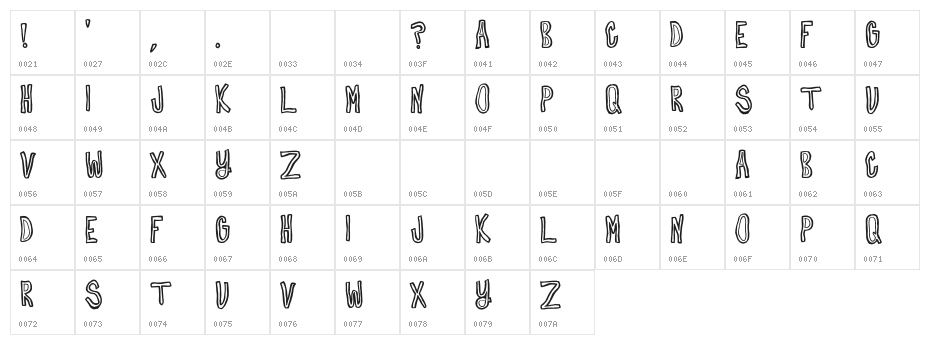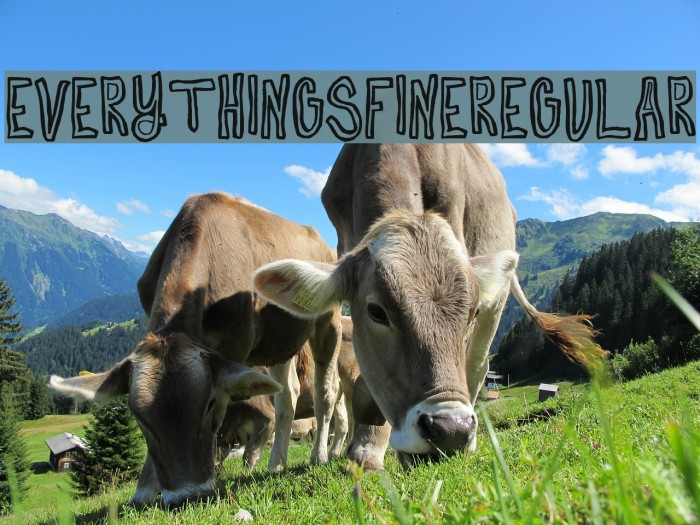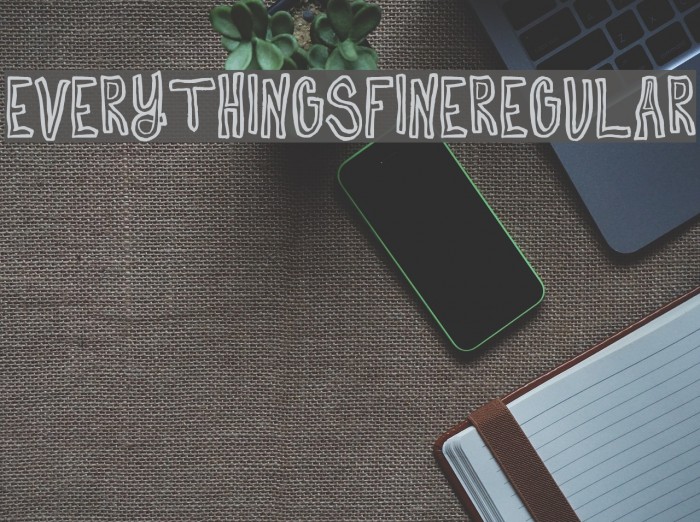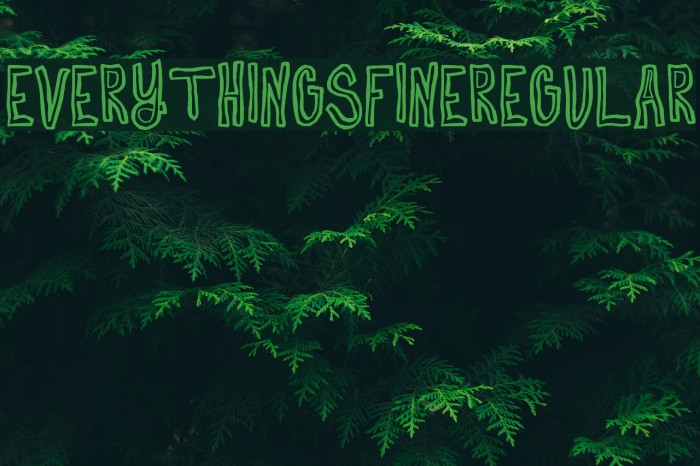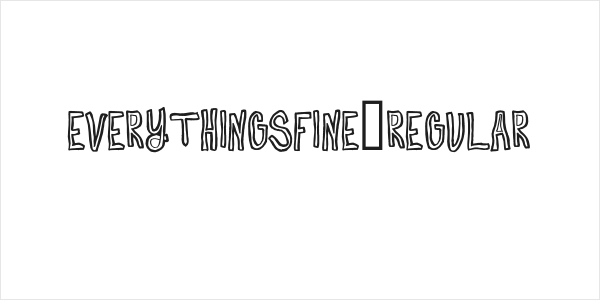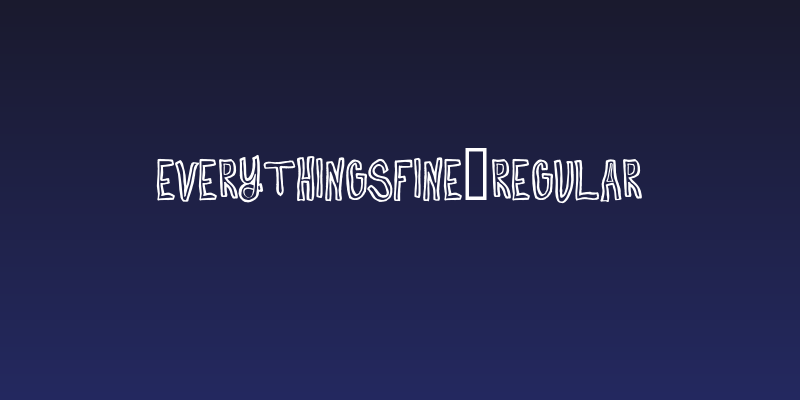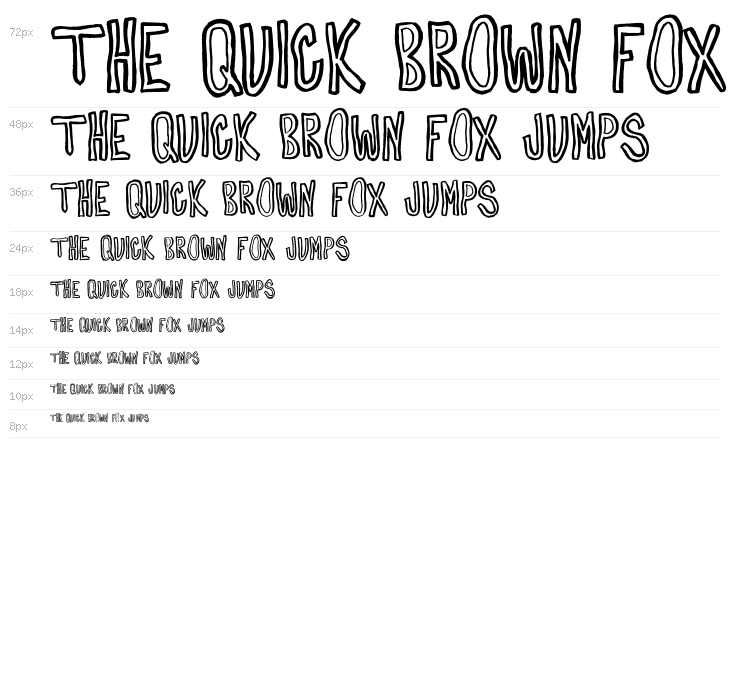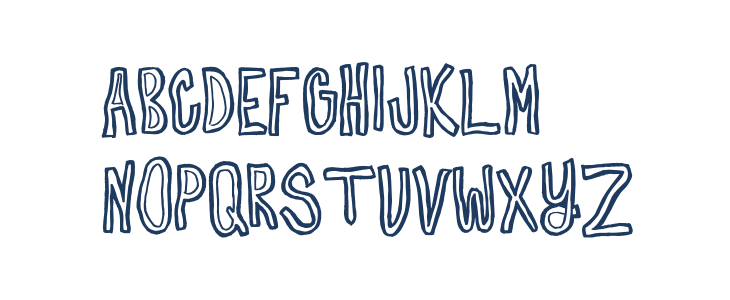
EverythingsFine-Regular Font
EverythingsFine-Regular Description
This font features a playful and informal style with a hand-drawn appearance. The letters are bold and have a slightly uneven, sketch-like quality, giving them a casual and approachable feel. The strokes are thick and consistent, with rounded edges that add to the friendly aesthetic. The uppercase and lowercase letters maintain a uniform height, contributing to a cohesive look. The numbers and special characters follow the same design principles, ensuring a harmonious overall appearance. This font is ideal for projects that require a fun and relaxed vibe.
| Overall Style | Casual, Playful |
| Use Case | Headlines, Posters, Informal Text |
| Proposed Projects | Ideal for children's books, casual posters, greeting cards, and playful branding. |